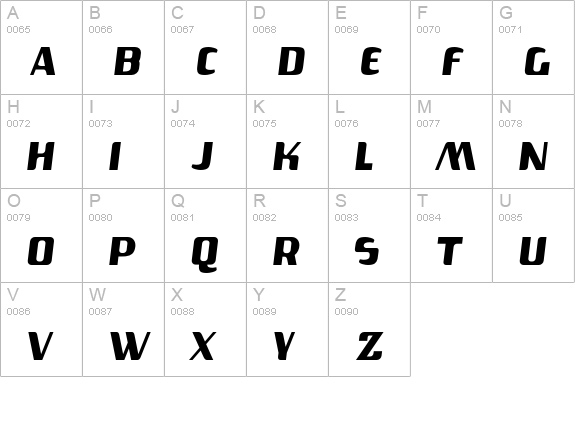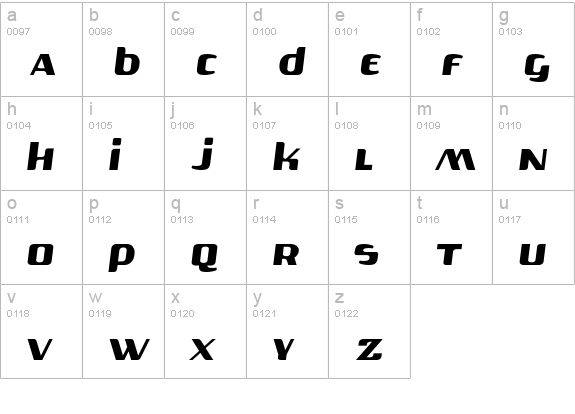
Gas Font Details
Gas font is a modern and versatile typeface that exudes a sense of energy and dynamism. Its sleek and futuristic design makes it perfect for a wide range of projects, from branding to advertising to editorial design. The unique geometry of Gas font gives it a distinctive edge that sets it apart from other fonts. What's even better is that Gas font is available for free download at FontsMarket.com. This means you can easily incorporate this stylish font into your designs without breaking the bank. Whether you're working on a professional project or simply want to add a touch of sophistication to your personal creations, Gas font is a fantastic choice that won't cost you a penny. Download it today and see how this eye-catching font can elevate your designs to the next level.